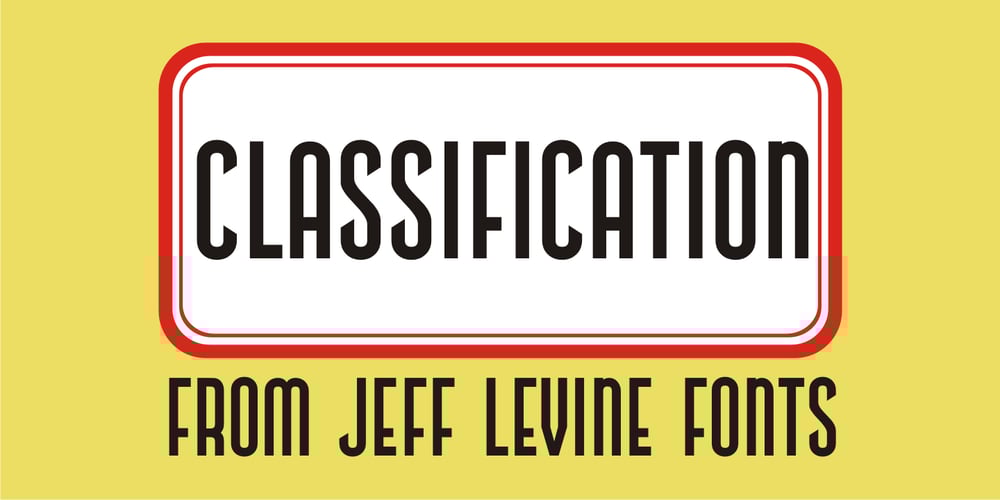
Classification JNL
Classification JNL font
Classification JNL Font Family was designed by Jeff Levine and published by Jeff Levine. Classification JNL contains 1 styles and family package options. Sometimes it’s easy to find a name to fit a font design, other times it’s a struggle because of the sheer number of digital fonts available and the number of names already taken. Classification JNL stretches a point to arrive at its name. The attractive sans design was found as a hand-lettered title on a piece of vintage sheet music called “My Hawaiian Souvenirs”. During the 1940s, the popular mode of travel to other countries was by steamship. Steamship passengers were assigned their accommodations by the type of passage they booked (such as First Class and Tourist), thus they were in various levels of classification. This aside, Classification JNL is a nice alternative to “standard” condensed fonts for design projects.